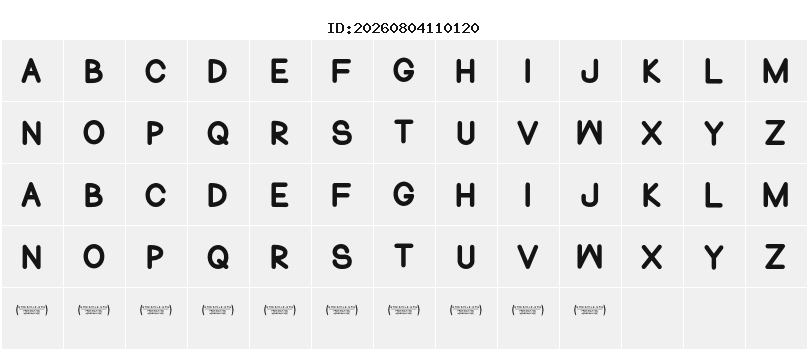
Normal Sometimes Preview
• Font Name: Normal Sometimes
• Designer: Chris Vile
• Manufacturer: Font Monger
• Description: Normal Sometimes Regular is a font by Font Monger, designed by Chris Vile in 2014.
About Normal Sometimes.otf
Normal Sometimes.otf is a modern, elegant sans-serif font designed for ultimate readability and visual harmony. Perfect for branding, headlines, web design, and print materials.